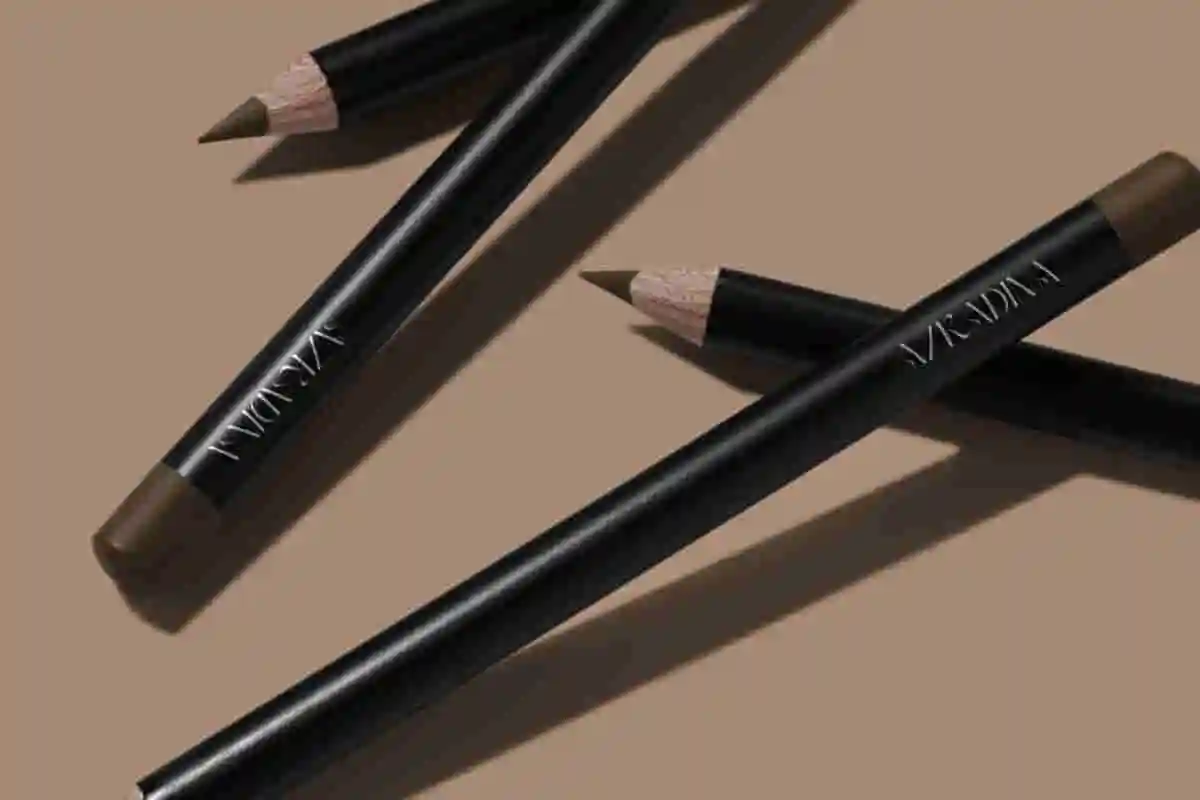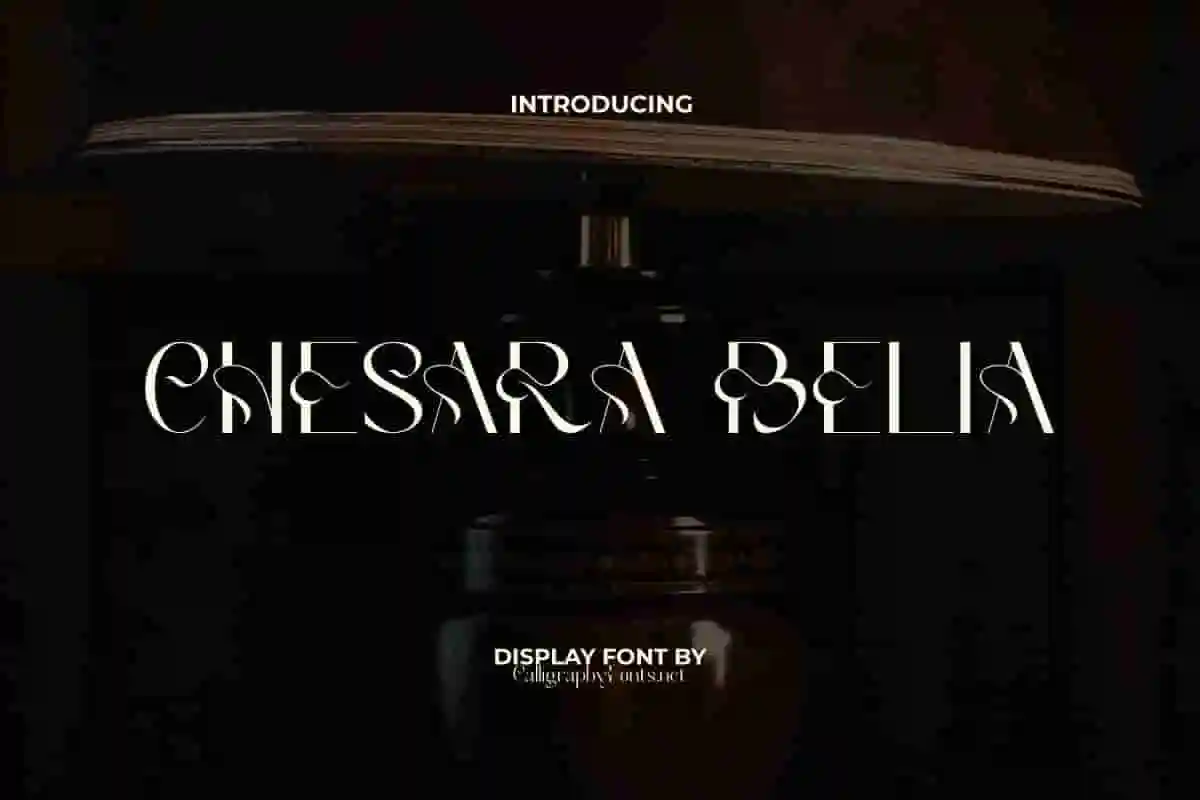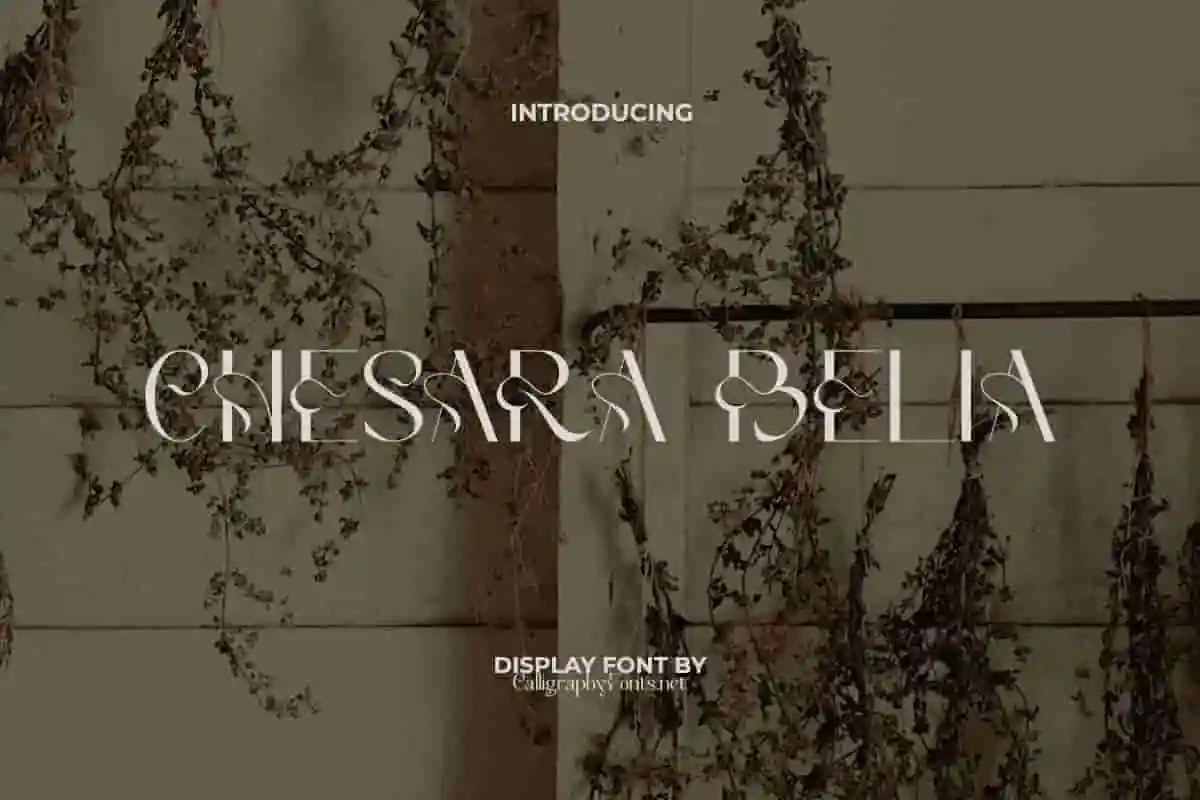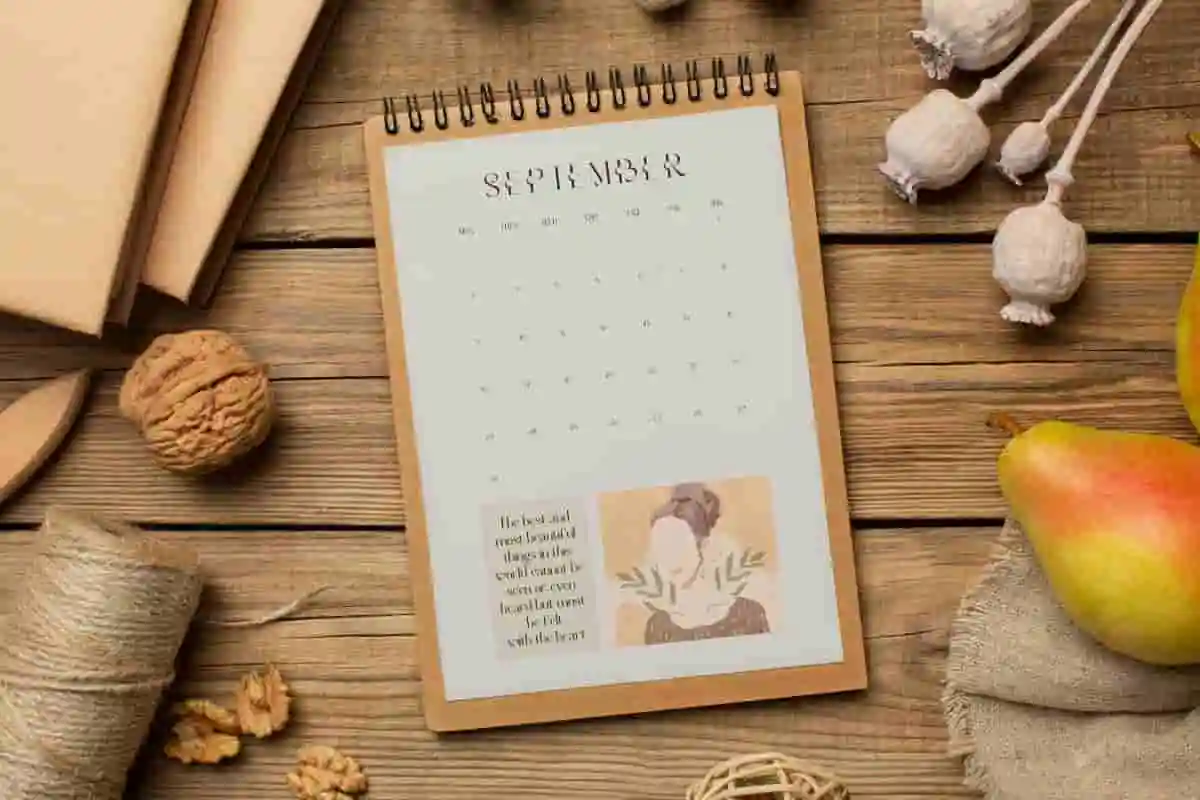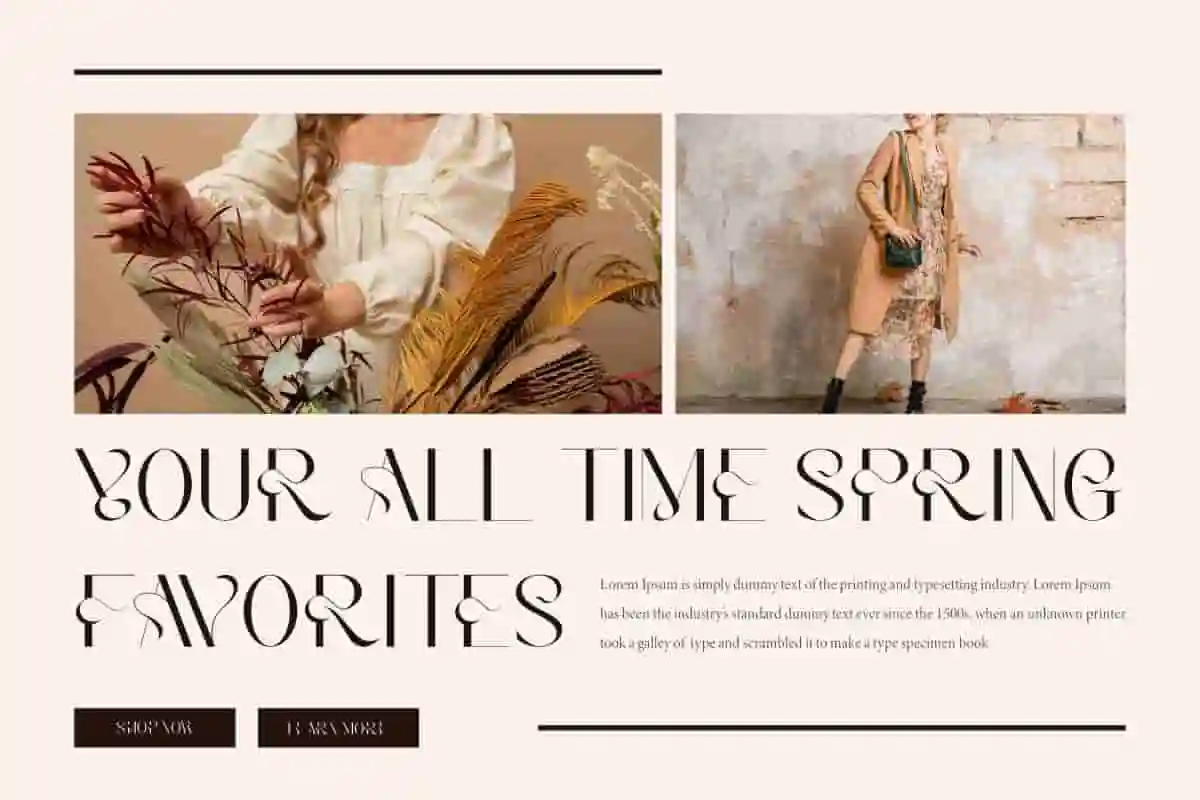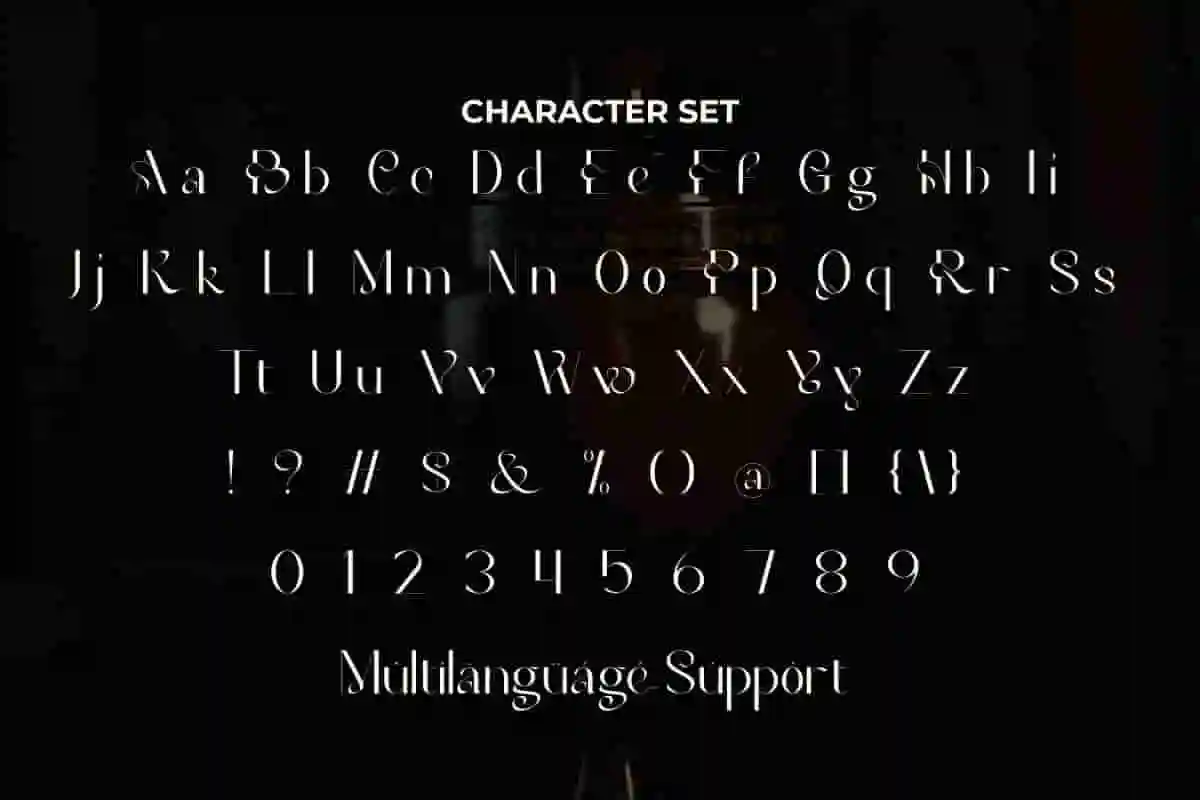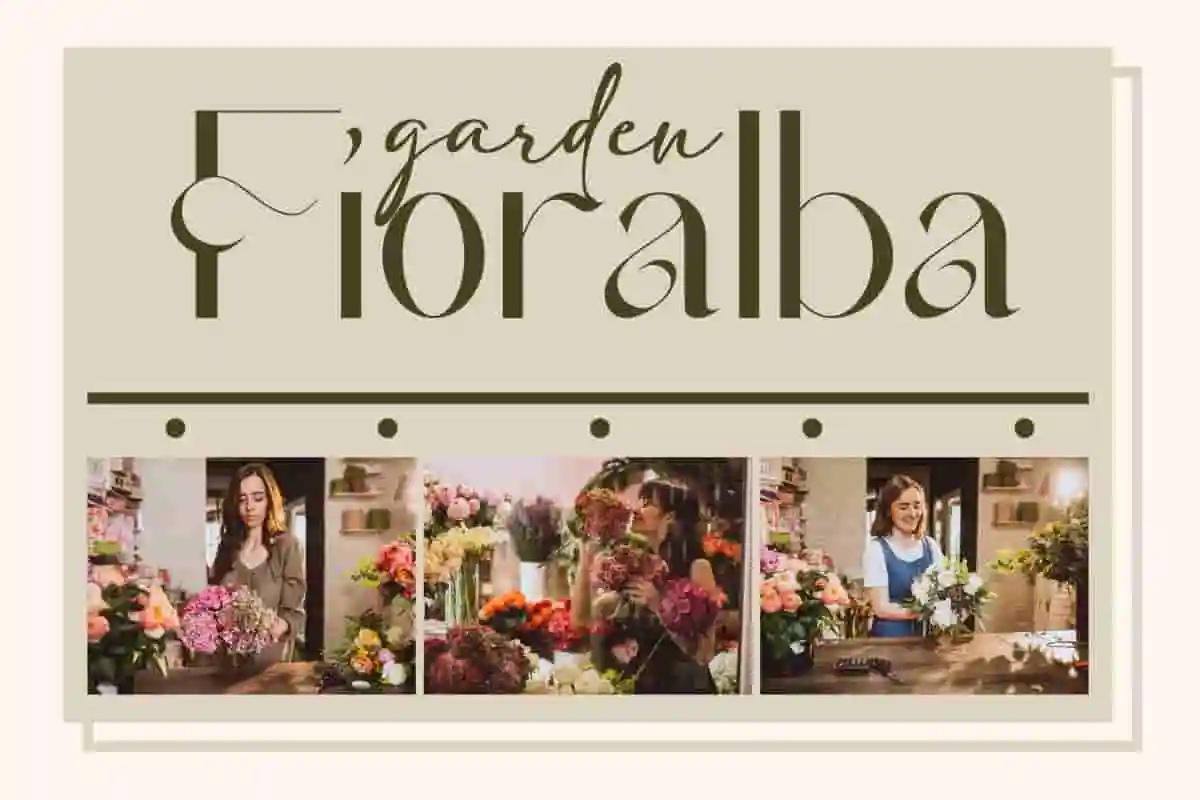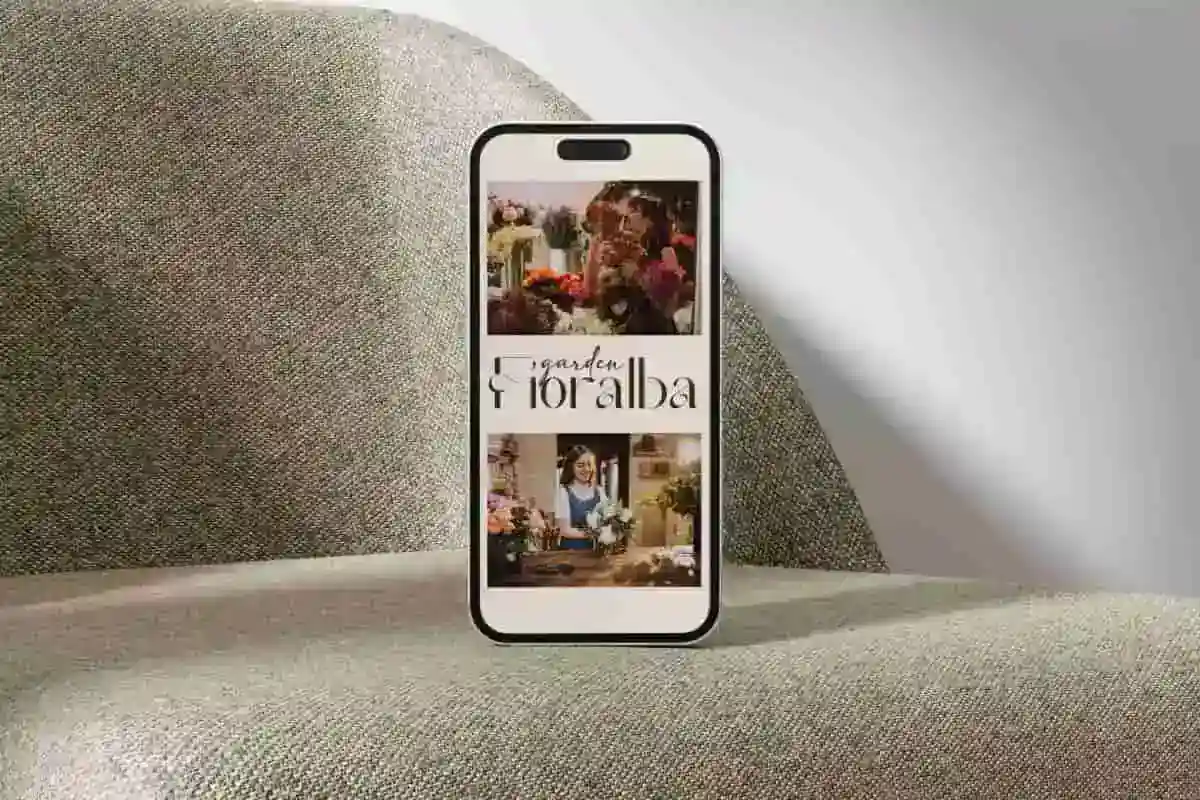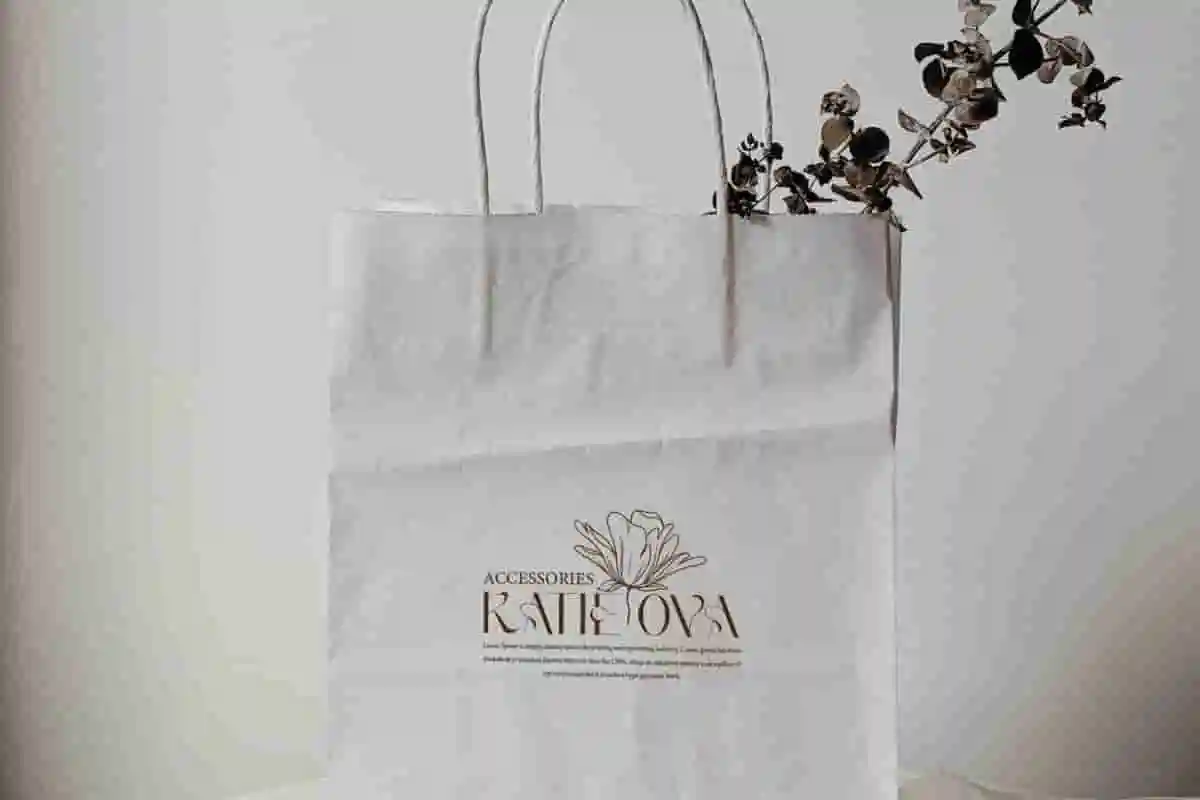
Chesara Belia Font
Chesara Belia Display Font presents a sophisticated and distinctive typeface that is best used as the main display for cosmetic brand, logos, product packaging, titles, and so on. Feel free to experiment with this sans serif look!
Chesara Belia Font is a unique elegant yet sophisticated sans serif display with a striking visual character that is different from the usual. Its curves are eye-catching and its thin style maintains a classy feel. Perfect for apps, blogs, covers, greeting cards, headers, headline, invitation, label, logos, mockup, packaging, quotes, screen printing, signage, social media design post, stationery, sticker, template, title, watermark, website, and many more.
Discover the power of typography with Chesara Belia Display Font, a unique typeface designed to bring bold sophistication and creative energy to your projects. With its striking letterforms and stylish balance between modern curves and strong edges, this display font is perfect for making a memorable statement.
Whether you are designing for logos, branding, posters, packaging, social media content, invitations, or merchandise, Chesara Belia Display Font offers the perfect combination of creativity and professionalism. Its versatile style adapts seamlessly to both contemporary and classic design themes, ensuring your message always stands out.
Each character is carefully crafted for maximum impact while keeping readability intact. This makes it an excellent choice for both digital and print applications, from high-fashion branding to bold advertising campaigns. With Chesara Belia Display Font, your words will always carry presence, style, and authority.
In a world full of visuals, your typography should reflect confidence and personality. Chesara Belia Display Font helps you achieve that by giving every design a touch of elegance and modern flair, ensuring your projects leave a lasting impression.
Chesara Belia Display Font makes it very easy for you to play around with customization to create any creative look you want. Useful for both digital and print purposes, and able to be dominant in any situation, both formal and informal. Perfect for accessories and gift, advertising, apparel, author, boutique, corporate, cosmetologist, fashion, florist, graphic designer, handicraft, home furniture, interior designer, photography, publisher, restaurants, spa salon, and more.